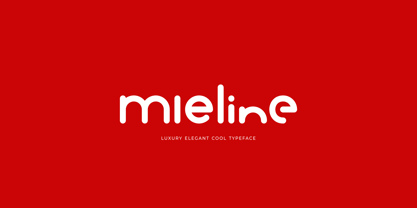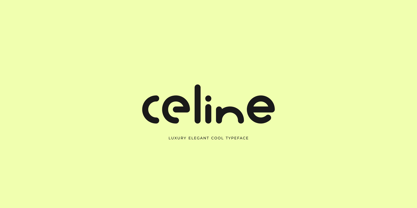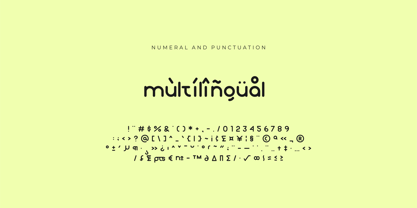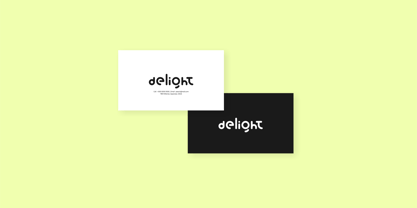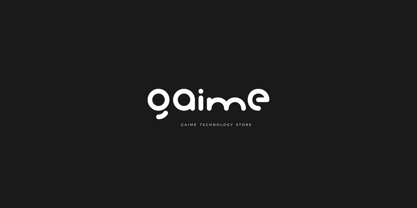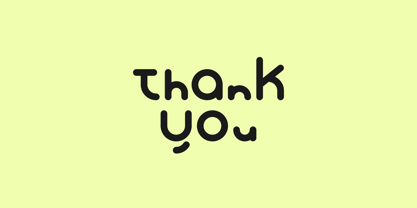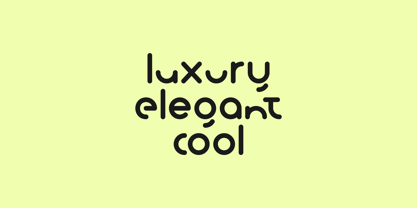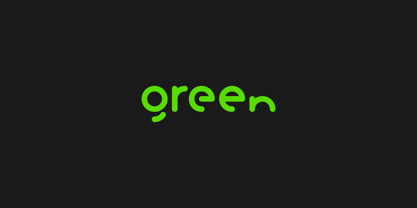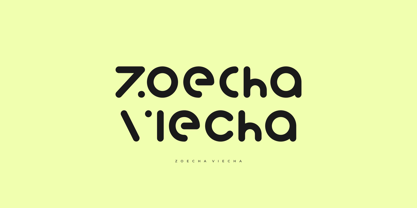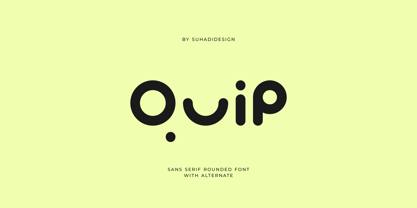
Quip
La familia tipográfica Quip fue diseñada por ahmad suhadi y publicada por suhadidesign. Quip contiene 1 estilos. Más información sobre esta familia
Quip - Sans Serif Rounded Alternate
Following market demand, I created a minimalist sans serif font that's contemporary, elegant, and cool. Therefore, I decided to create this sans serif font. Quip is a cool font for millennials and Gen Z, presented in a modern style that's a market favorite. We've kept this font looking cool, classy, modern, stylish, up-to-date, and easy to use. Quip is the perfect choice for logos, brands, companies, startups, labels, fashion, branding, brand names, and other projects. Quip is here to take your designs to the next level.
Quip's font style will make you enjoy designing and benefit from the cool design results of this font. Stay tuned for more font updates :)
Font Features:
• Letters a-z
• Alternate
• Multilingual Support
• Numbers and Punctuation